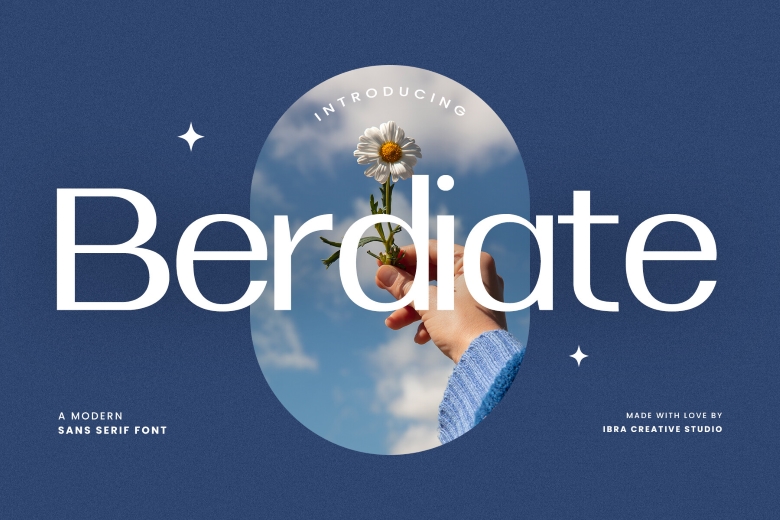
Berdiate Font
As for Berdiare, a sans-serif font deployed in today’s designing, it comprises clear-cut lines with geometrically straight and objectively assessing look which insets a minimalist nonet. Its letterforms are refined as to achieve maximum readability and functionality regardless of its use in any design related context.
The colorful but unsophisticated serifs are almost absent and the clean, equally thick lines suit the purpose of giving an image of modernity and simplicity to Berdiate.
Berdiate Sans Serif Font